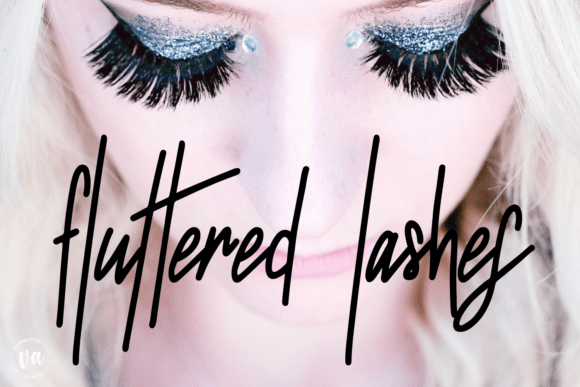
Adding a Personal Touch with Fluttered Lashes Font
Have you ever been working on a design project and suddenly, you’re struck by the desire to add a touch of personality to your work? Maybe it’s a handmade feel, a dash of whimsy, or a pinch of romance – whatever it is, it’s that elusive quality that makes your designs stand out from the crowd. For many designers, the key to unlocking this magic lies in the right font.
Enter Fluttered Lashes Font, a beautiful handwritten monoline font that’s designed to give your products a genuine, handwritten feel. With both discretionary and standard ligatures, this font is perfect for everything from greeting cards to fun branding and crafting files. Whether you’re a seasoned designer or just starting out, Fluttered Lashes Font is a valuable addition to your toolkit – and we can’t wait to explore its possibilities with you.
Key Features of Fluttered Lashes Font
- Font Family: Fluttered Lashes is a beautiful, elegant script font that includes a wide range of characters, including uppercase and lowercase letters, numbers, and punctuation.
- Unique Characteristics: The Fluttered Lashes font features a unique, whimsical design with delicate flourishes and subtle texture, giving it a distinctive and eye-catching appearance.
Fluttered Lashes Font Review
I recently had the chance to work with the Fluttered Lashes Font, and I must say it’s been an interesting experience. ✨ One of the things that stands out about this font is its unique and playful aesthetic. The delicate, swirling lines give it a whimsical feel that’s perfect for creative projects, like children’s book illustrations or feminine branding.
Here are some of the font’s strengths:
- ✨ The font’s irregularity adds visual interest and makes it stand out from more traditional serif fonts.
- ✨ It’s perfect for adding a touch of femininity to your designs.
- ✨ The font is highly customizable, making it easy to adjust the weight and spacing to suit your needs.
- ⚠️ The font can be difficult to read at small sizes or in low-resolution contexts.
- ⚠️ The irregularity that makes the font so charming can also make it difficult to pair with other fonts or text elements.
Overall, I think the Fluttered Lashes Font is a great choice for designers looking to add some whimsy to their projects. While it may not be suitable for all types of design, it’s a unique and eye-catching option that’s sure to spark some creativity.
For optimal results, use the Fluttered Lashes font for titles, headings, and emphasis in your design projects. It’s particularly effective for creating whimsical and playful designs. To get the most out of the font, experiment with different font sizes, colors, and combinations with other fonts.